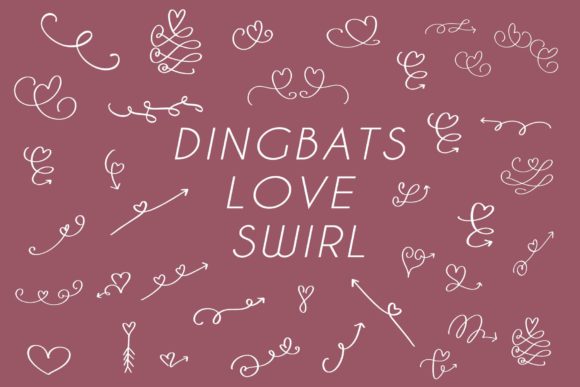
Dive into a world of captivating designs with Dingbats Love Swirl Font, the ultimate choice for making your creative visions come alive. This extraordinary dingbats font family, brought to you by the talented goodigital, offers a treasure trove of enchanting symbols, whimsical icons, and charming ornaments, waiting to transform your projects into captivating works of art.
Unleash your artistic flair and let Dingbats Love Swirl Font be your muse as you explore endless possibilities for crafting, digital designing, presentations, and greeting card-making. Its versatility and elegance will leave you spellbound, allowing you to effortlessly elevate your designs and capture hearts with every stroke.
Imagination takes flight with Dingbats Love Swirl Font, where intricate swirls, delicate hearts, and playful motifs dance together in perfect harmony. Each character exudes a unique charm and personality, ready to add a touch of magic to your designs.
Step into a realm of limitless creativity with Dingbats Love Swirl Font, where the ordinary becomes extraordinary. Elevate your visual storytelling, captivate your audience, and create designs that leave a lasting impression. Let your creativity soar and embrace the beauty of Dingbats Love Swirl Font.
With its exceptional quality and meticulous attention to detail, Dingbats Love Swirl Font is the ultimate key to unlocking your creative potential. Download Dingbats Love Swirl Font today and embark on a journey of artistic exploration that will leave you breathless.